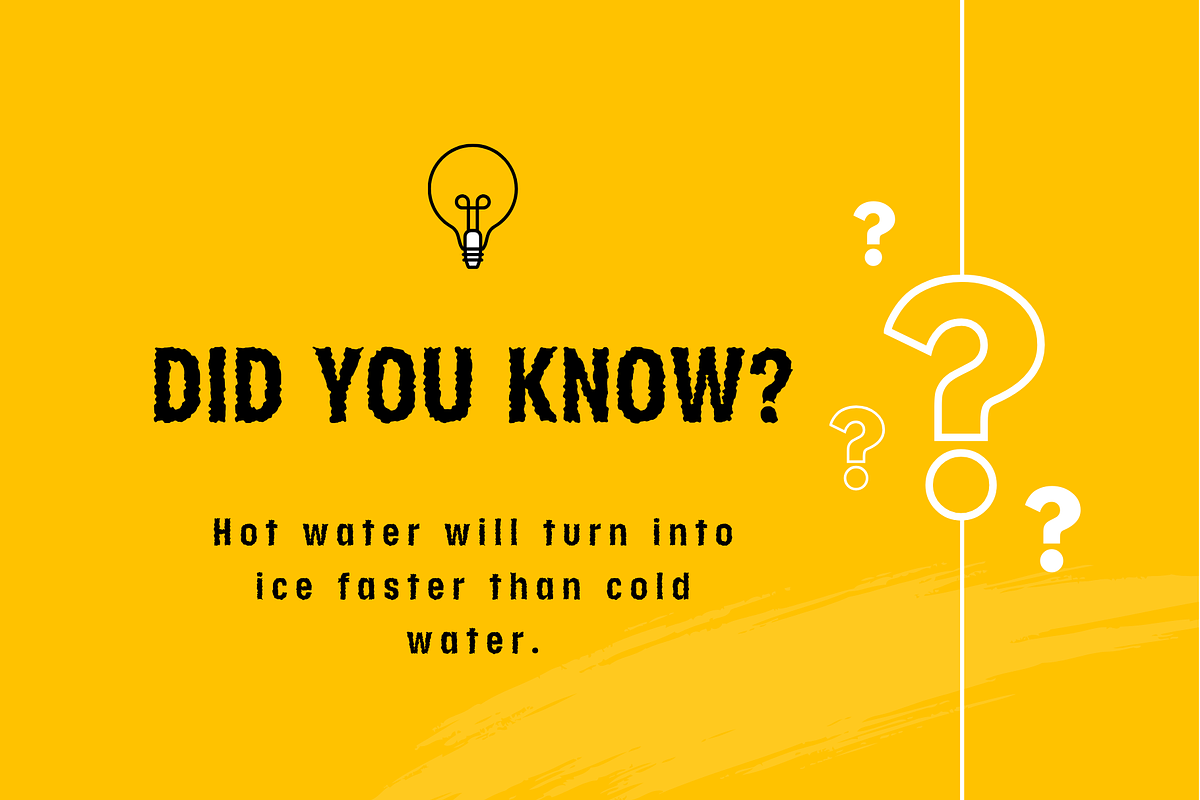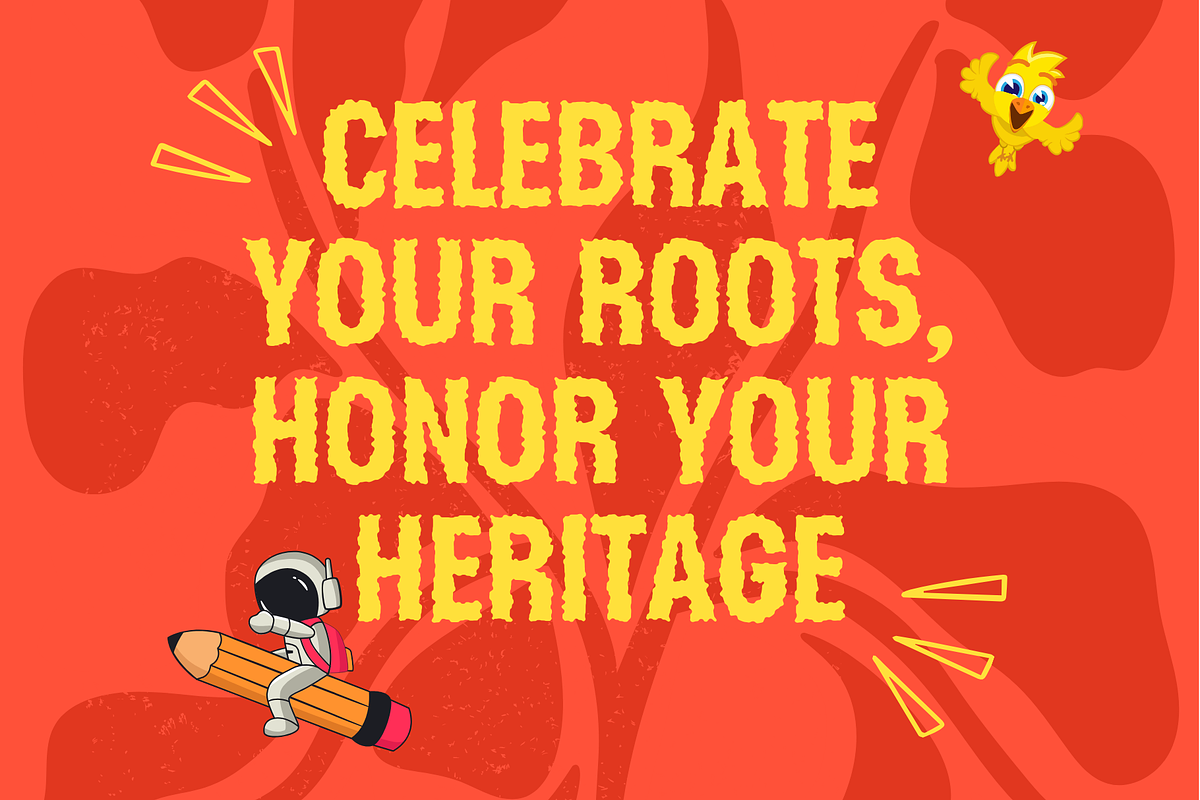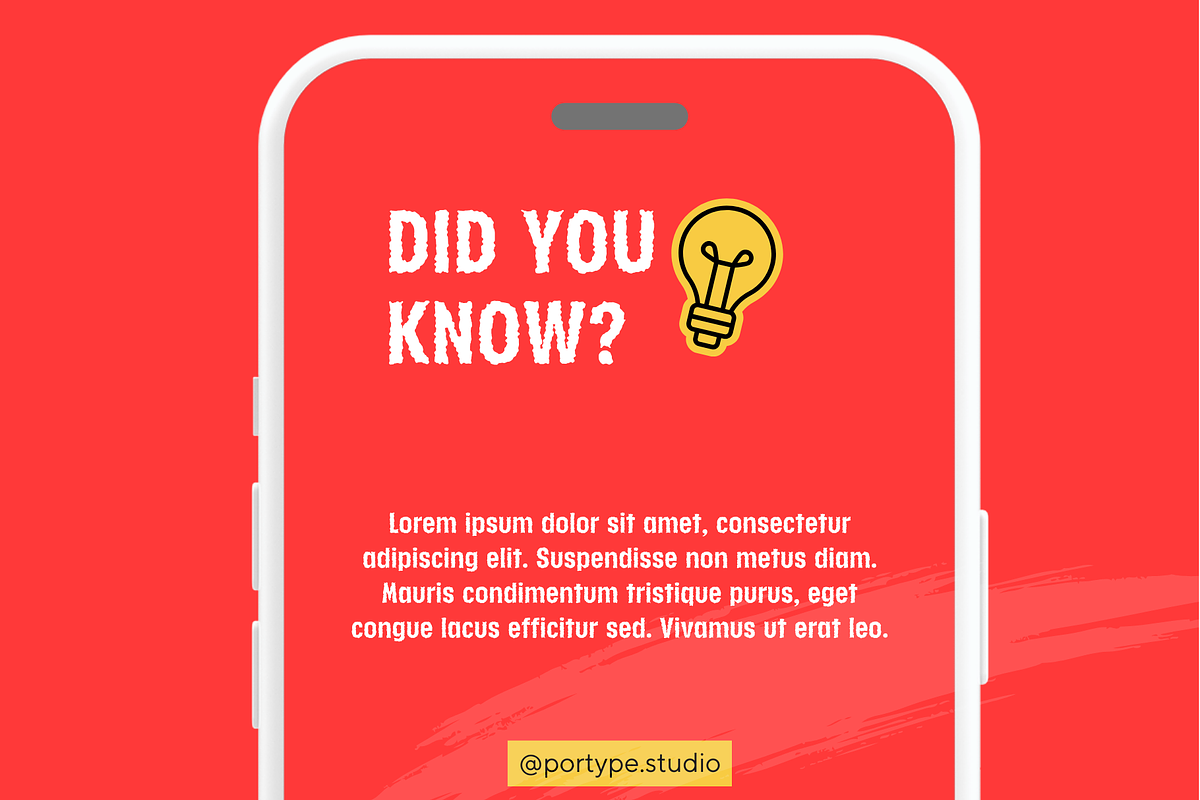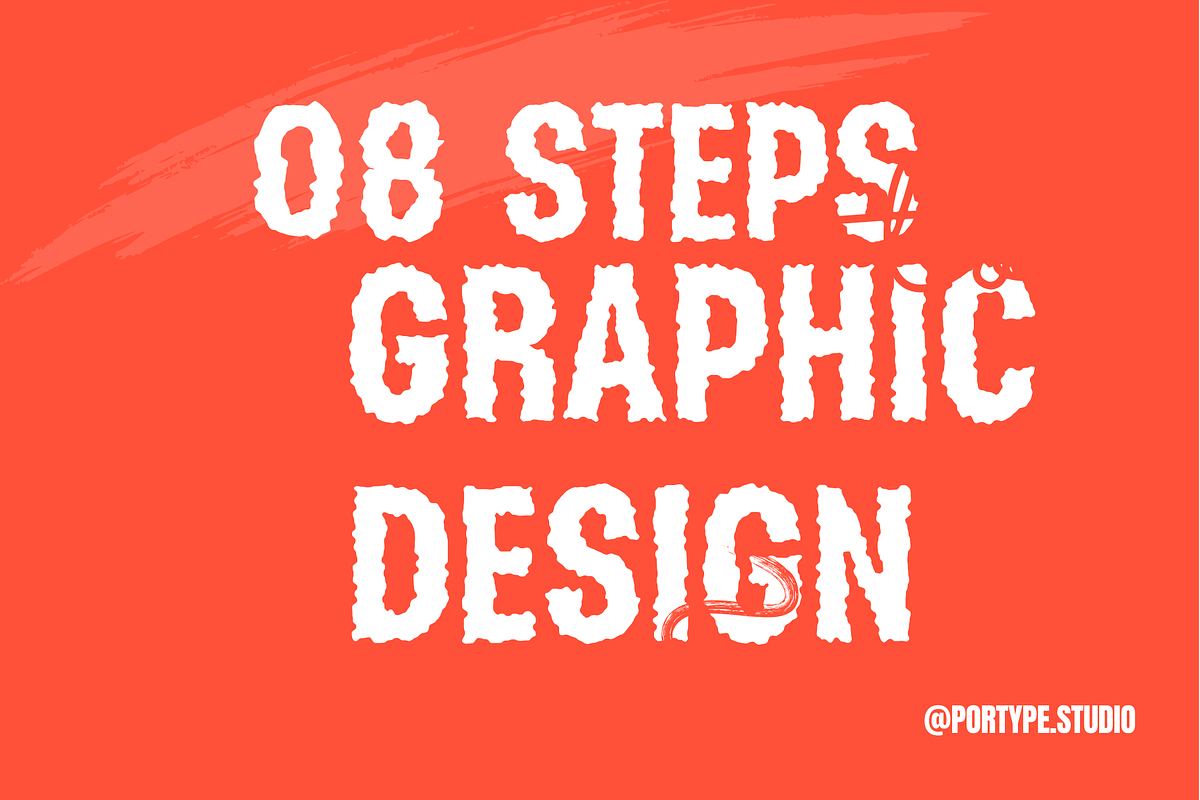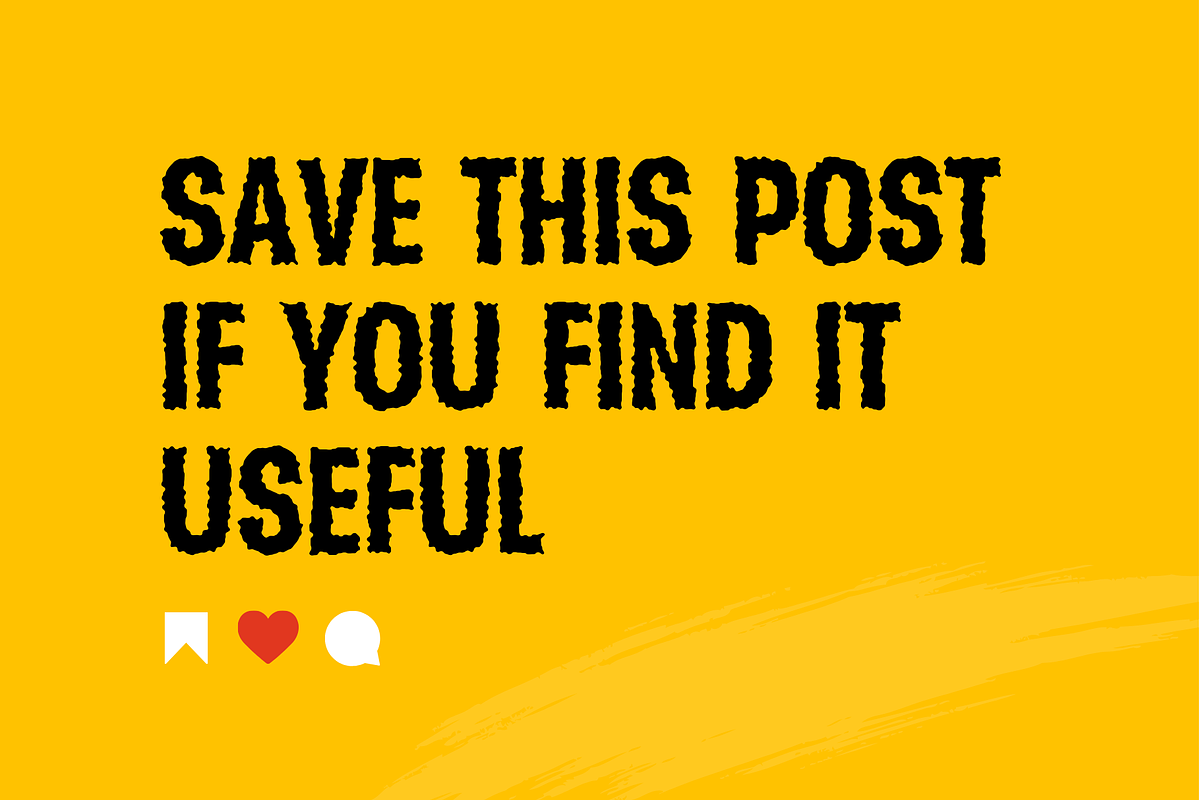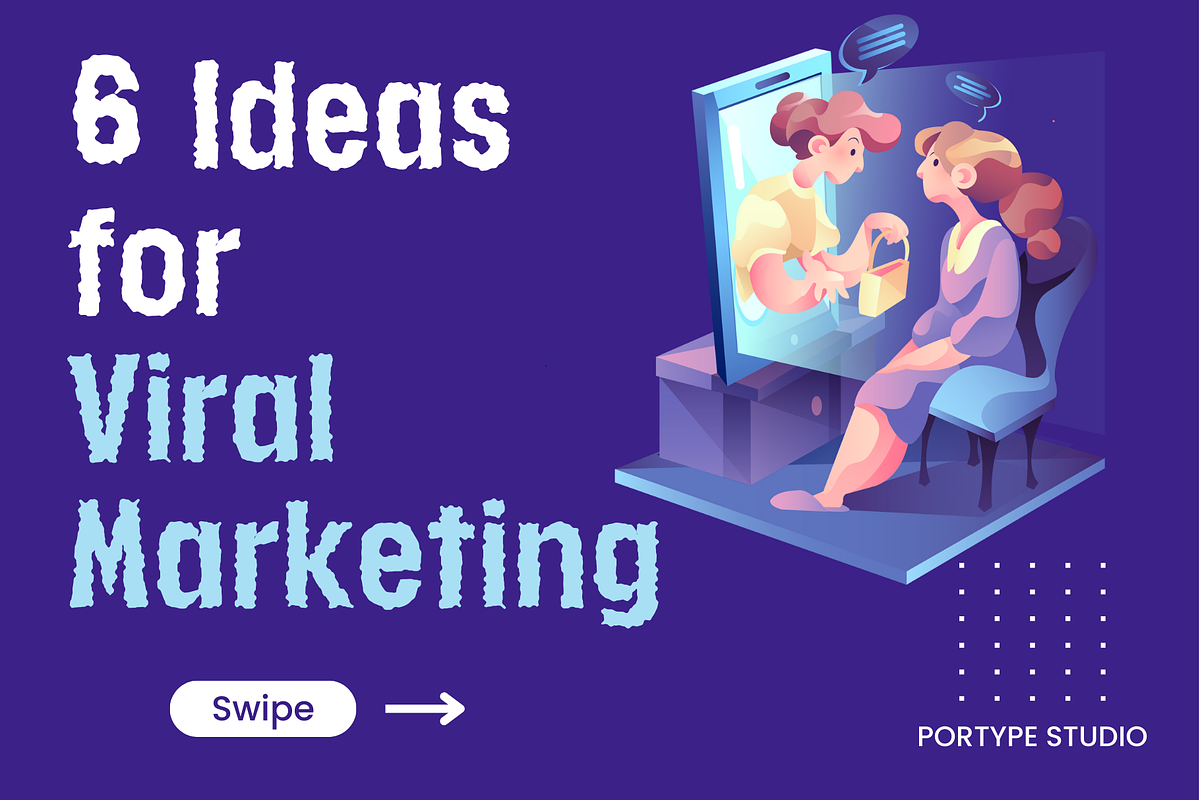
Deeproot
DeepRoot font captures the essence of organic growth and timeless elegance. Inspired by the intricate patterns found in nature's roots, this font style exudes a sense of groundedness and authenticity. With its graceful curves and flowing lines, DeepRoot font adds a touch of sophistication to any design while maintaining a connection to the natural world. Whether used in branding, editorial design, or artistic projects, DeepRoot font brings depth and character, rooting your message in beauty and tradition.